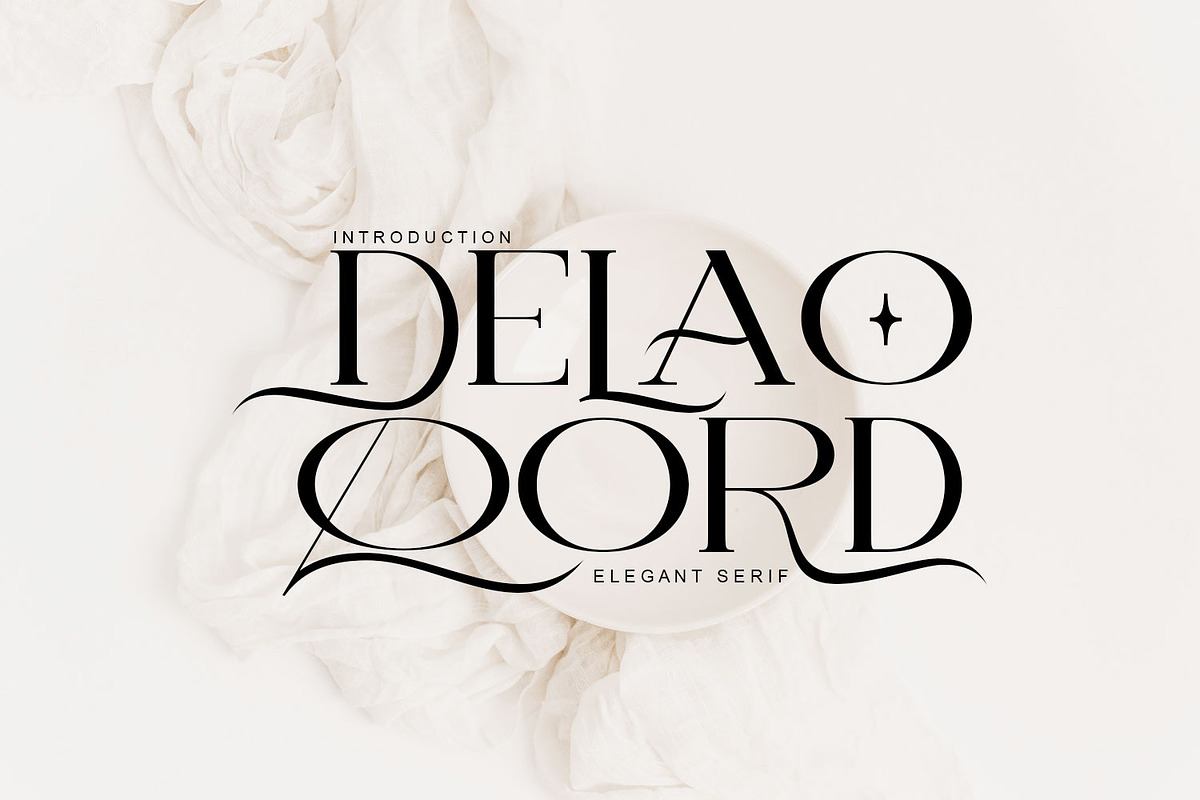
Delao Qord Font Free Download is a stylish and modern serif typeface with a unique twist of elegance and flair. Its high contrast strokes, artistic curves, and distinctive character shapes make it ideal for branding, fashion editorials, logo design, magazine covers, and luxury packaging.
Perfect for designers looking to make a bold yet refined impression, Delao Qord offers versatility across both digital and print formats. It effortlessly blends classic serif structure with contemporary edge. Delao Qord Font Free Download allows you to explore its creative potential in personal projects before committing to a commercial license.
Elevate your typography with Delao Qord — a font that balances sophistication, uniqueness, and visual impact.